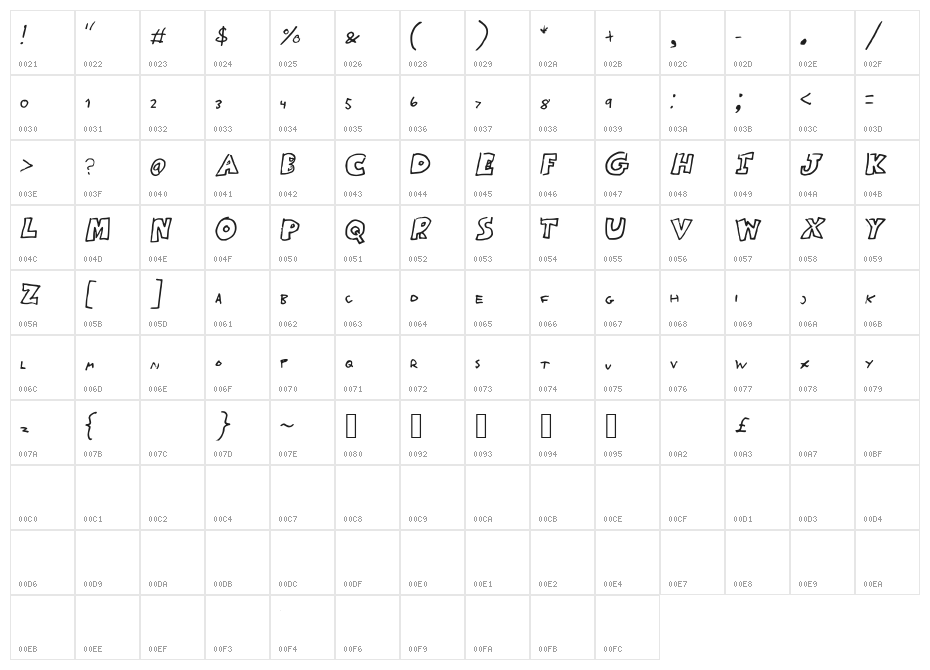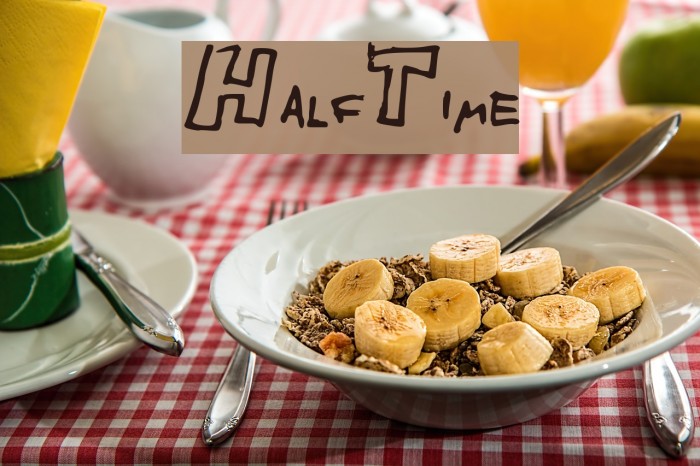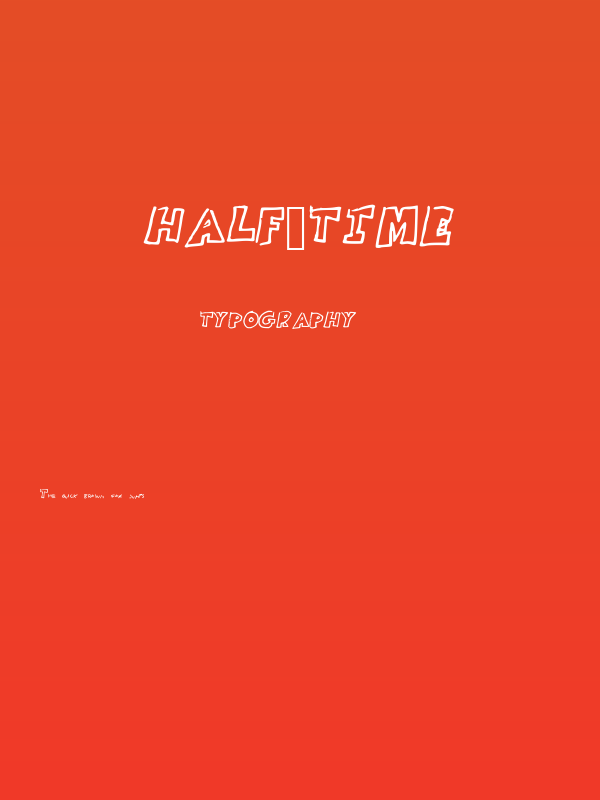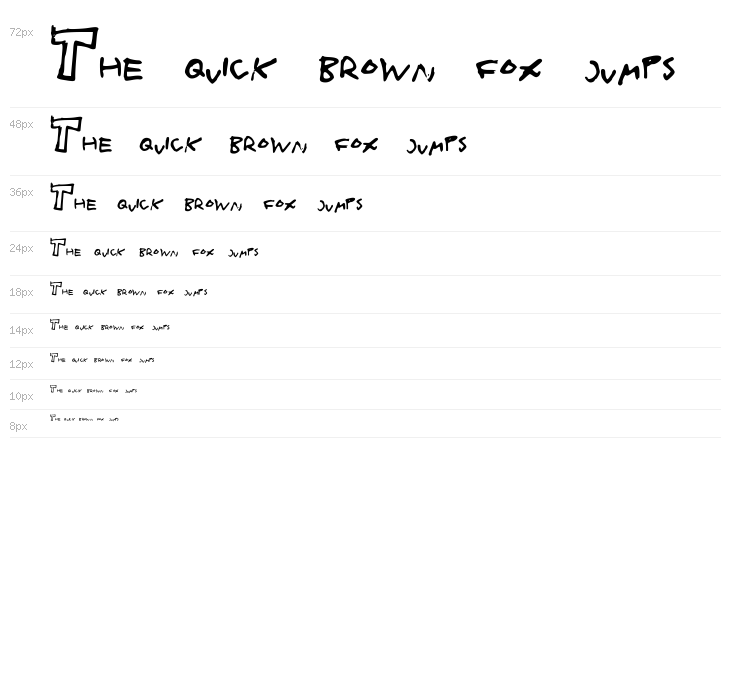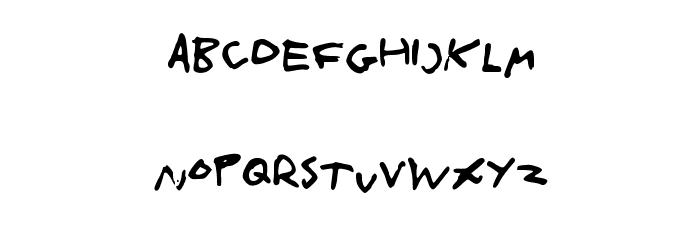
Half_Time Font
Half_Time Description
This font exhibits a playful and dynamic style, characterized by its bold and irregular letterforms. The uppercase letters have a cartoonish, hand-drawn appearance with uneven edges, giving them a lively and informal feel. The lowercase letters maintain this whimsical quality, with slightly exaggerated curves and angles. The numerals are consistent with the overall style, featuring a similar hand-drawn look. Special characters are creatively designed, adding to the font's unique personality. The font's boldness and distinctive style make it ideal for projects that require a fun and engaging visual impact.
| Overall Style | Playful, Cartoonish |
| Proposed Projects | Ideal for children's books, comic strips, playful branding, and event posters. |